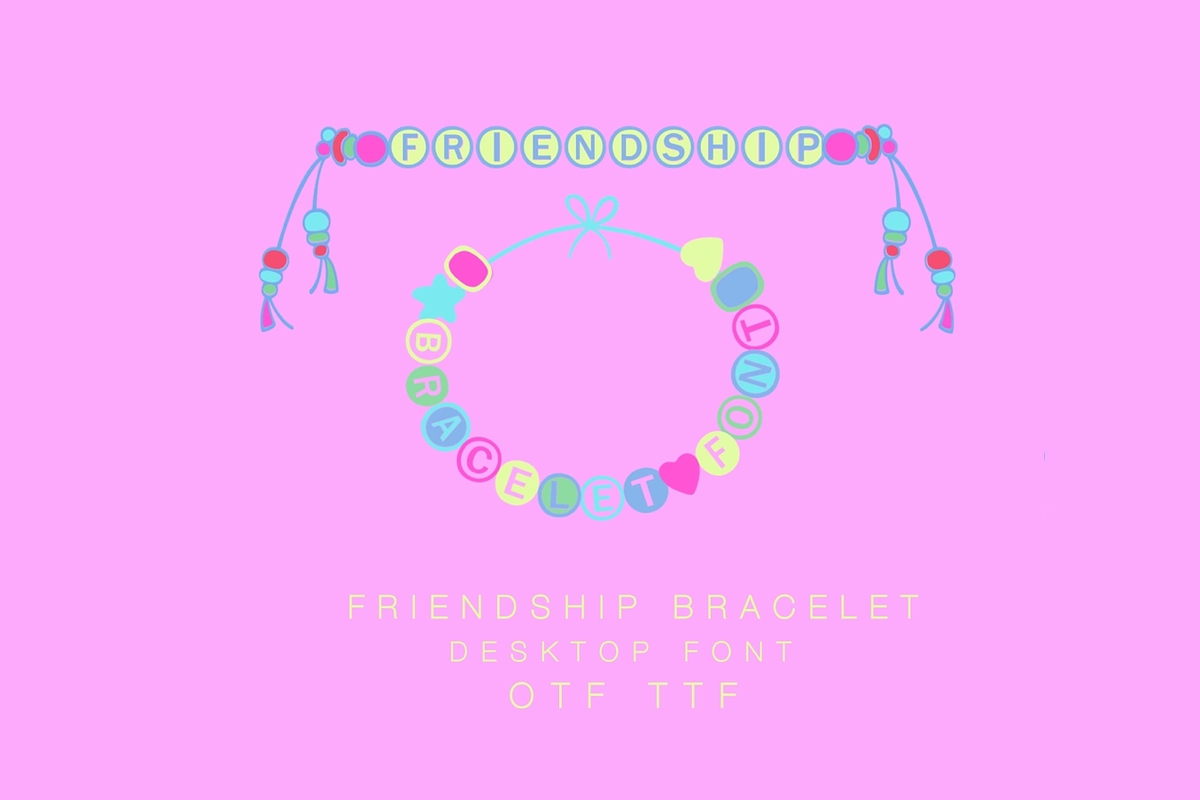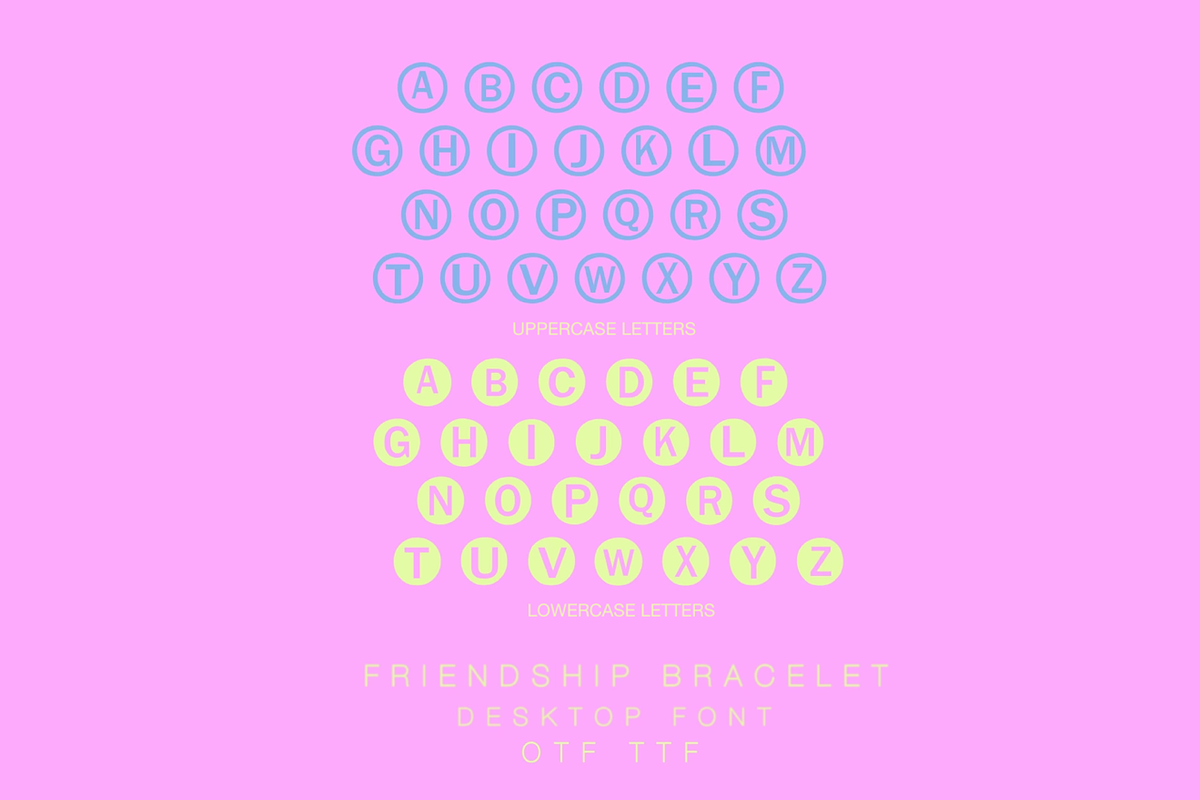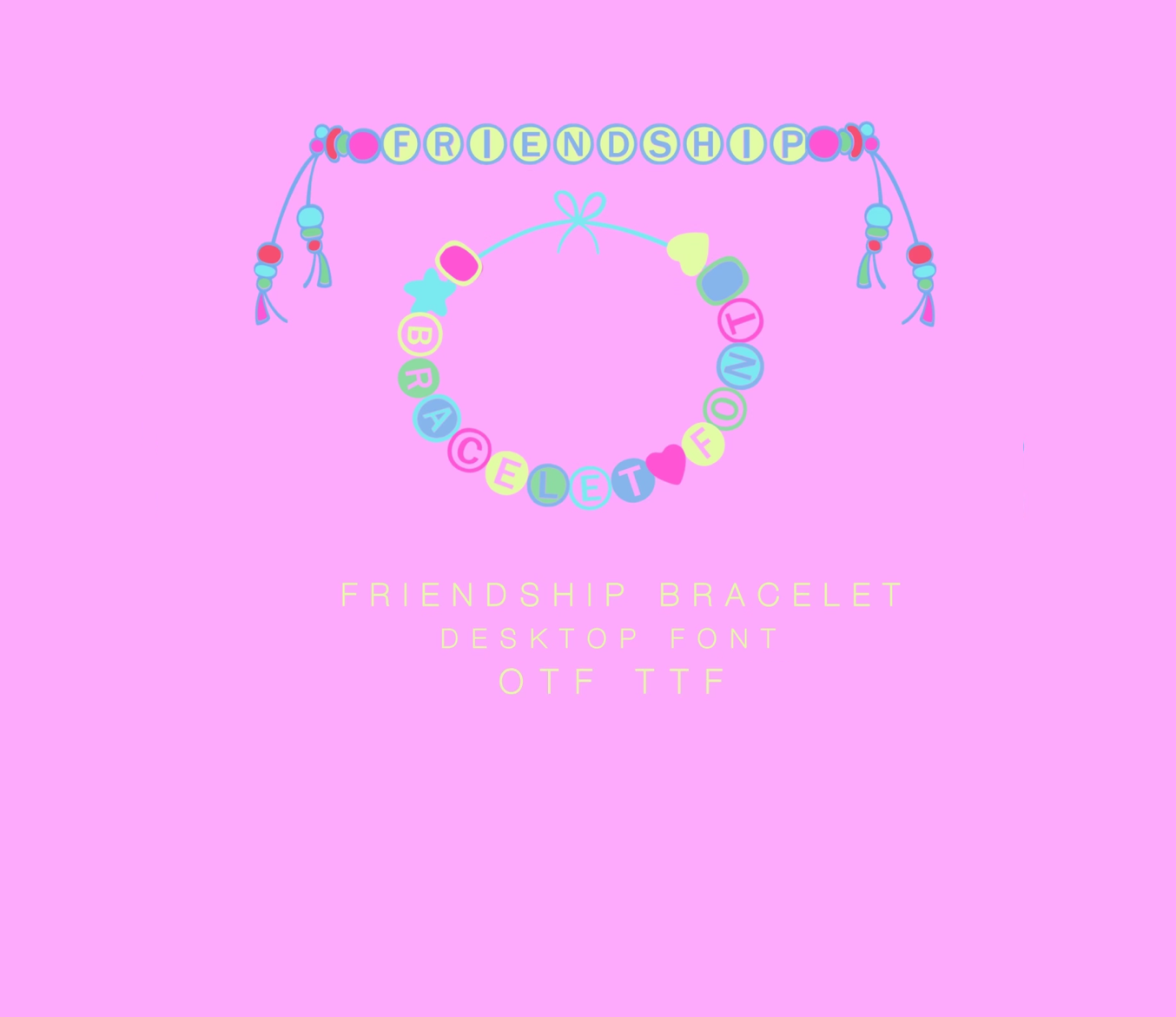
Friendship Bracelet Desktop Font
The Friendship Bracelet Font Package is a multi letter and symbol font that has everything needed to create a monogram as shown in the first three images.
Upppercase letters A-Z (open beads with circle outline). Lowercase letters (a-z) fill letters with open center letter. Open and filled beads, color fills and a tied bracelet (hyphen - symbol). The code for alt symbols is included in download.